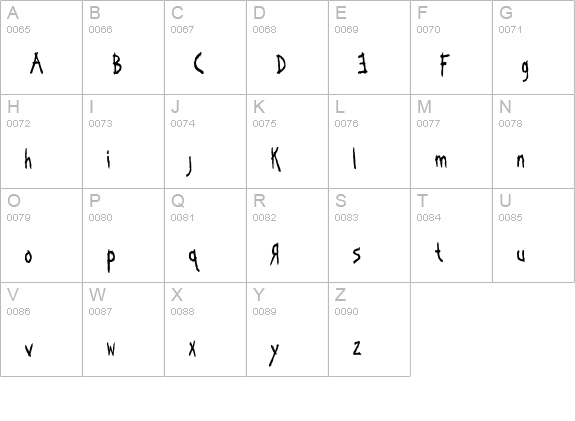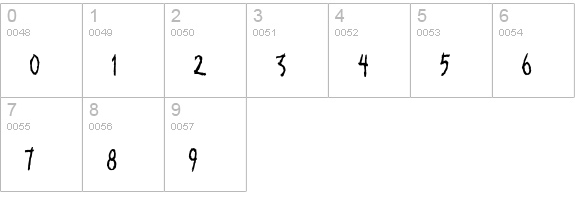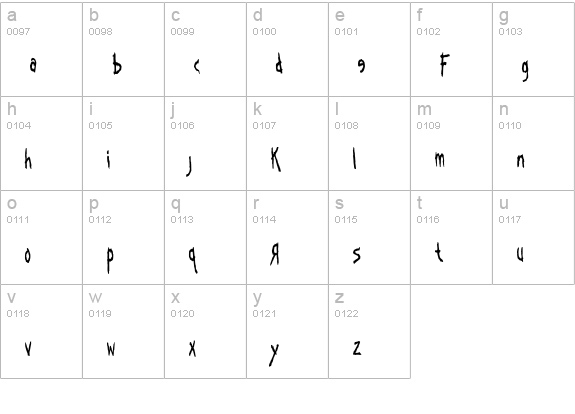
KoRnOgRaPhY Font Details
KoRnOgRaPhY font is a unique and edgy typeface that exudes a raw, rebellious energy perfect for making a bold statement in your designs. With its angular shapes and distressed texture, this font captures the essence of urban graffiti and street art. Its rough appearance adds a touch of grit and attitude to any project, making it ideal for posters, album covers, and other creative works that demand attention. What sets KoRnOgRaPhY font apart is not just its distinctive style, but also the fact that it is available for free download at FontsMarket.com. This means that you can easily access this eye-catching font and incorporate it into your projects without any cost. Whether you're a graphic designer, artist, or simply someone looking to add a touch of edge to your work, KoRnOgRaPhY font is a versatile and dynamic choice that will help you stand out from the crowd. Download it today and unleash your creativity with this captivating and expressive typeface.